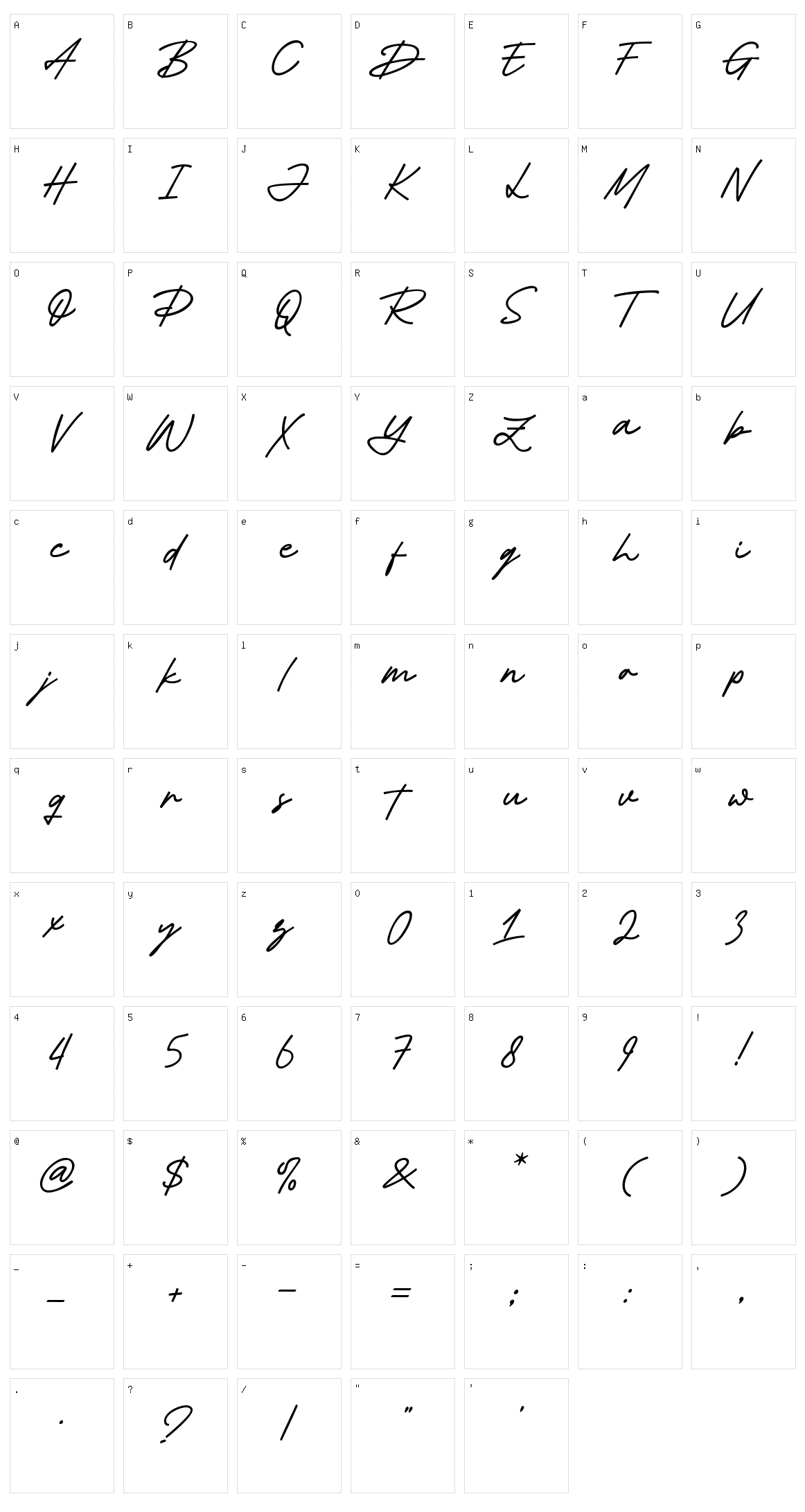
The free font Delight Mother is carefully designed by Khurasan, showcasing a thoughtful balance of creativity and usability and falls under the Script font style. When you download the ZIP file, it contains only 498.19 KB of font files, making it lightweight and quick to download. Please review the license details below to understand permitted usage and distribution rights. If license information is not available, we recommend using this font for personal projects only or contacting the author directly for commercial usage permissions.